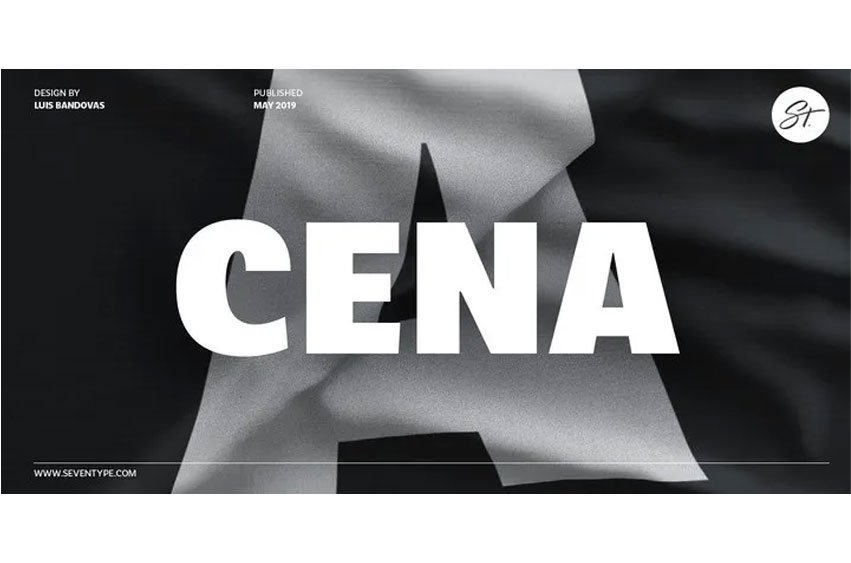
Cena Font Family. It is designed and shared by SevenType. The idea behind this typeface was to create a relatively narrow typeface. It’s just on the verge of being narrow in order to save space through narrower columns and headlines. However, It still performs well in running text.
Another thing is, it’s got a lot of contrast in the connection to the stems. to give it a more dynamic feel. It also has low descenders a lot of contrast in the connection to the stems in order to give it a more dynamic feel. It also has low descenders and a large x-height and great legibility. Each weight features 482 glyphs and 190 alternate characters.
This medium contrast family suits both advertising and editorial projects. making headlines, posters, and billboards eye-catching.